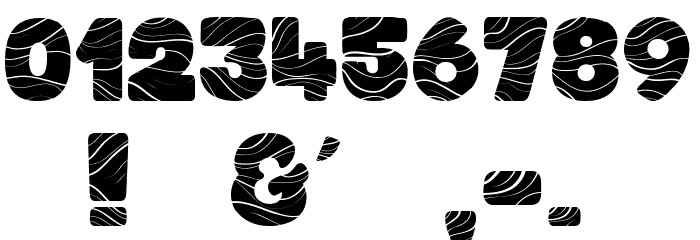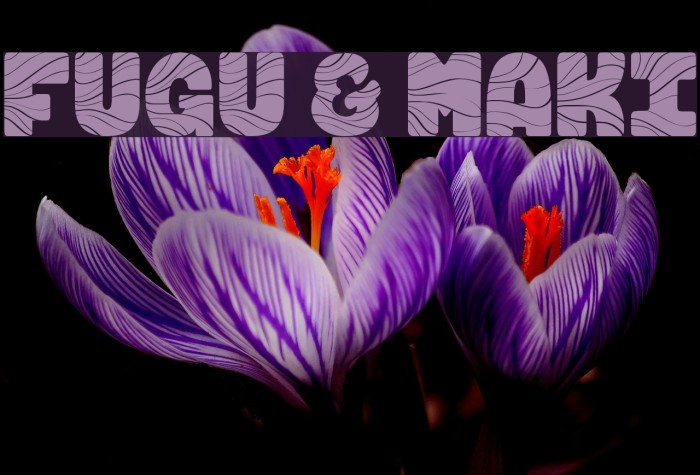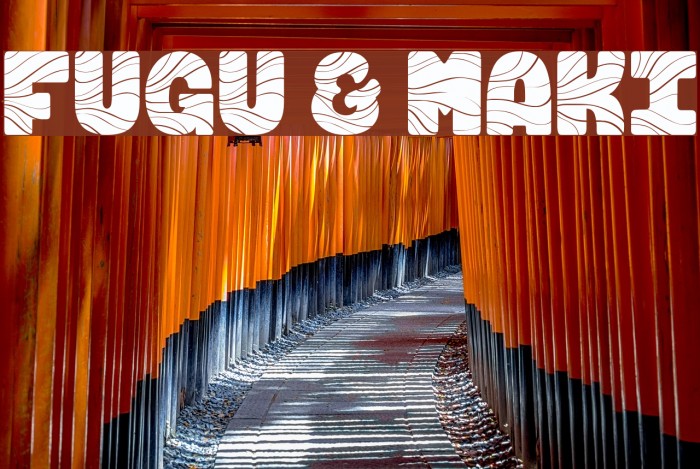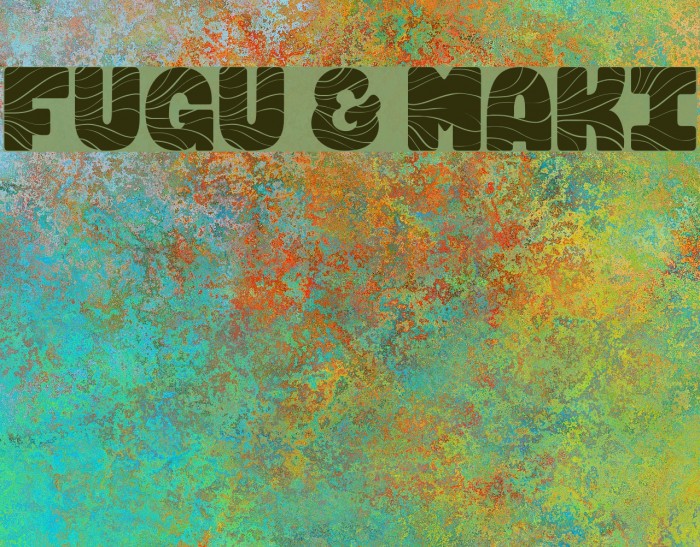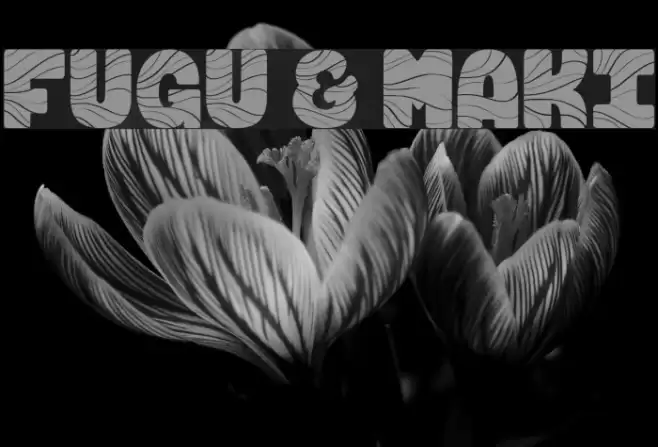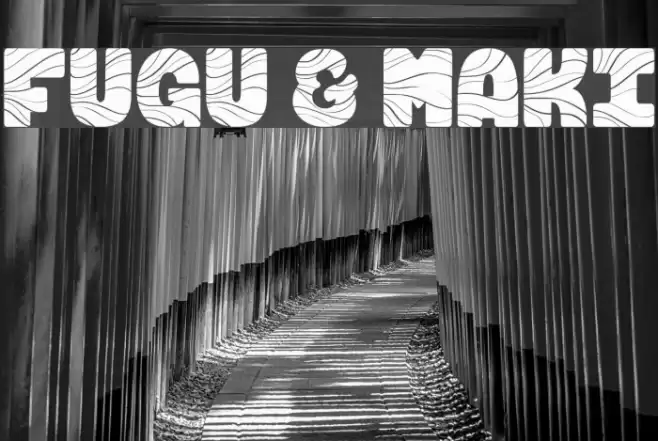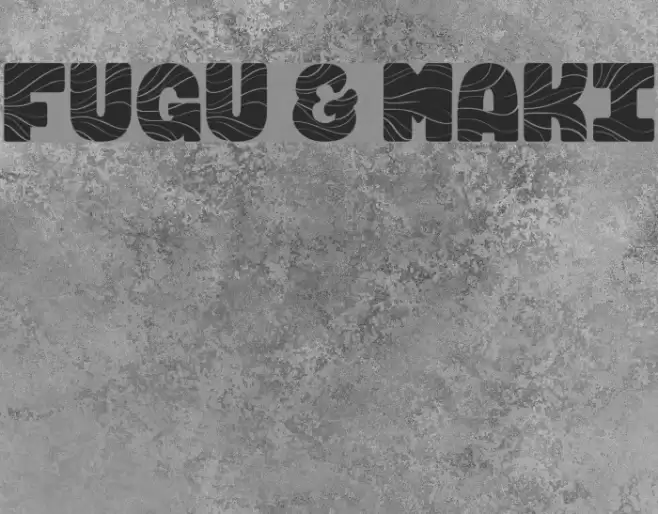
FUGU & MAKI Font
This font features a bold and playful design with a unique pattern filling each character, resembling waves or stripes. The letters are uppercase and have a rounded, chunky appearance, giving them a friendly and approachable look. The numbers and special characters follow the same design, ensuring consistency across all glyphs. The font's style is eye-catching and suitable for creative projects that require a fun and dynamic visual impact.
A bold, playful font with wave-like patterns filling each character.
- Proposed Projects: Ideal for children's books, playful branding, posters, and creative advertisements.